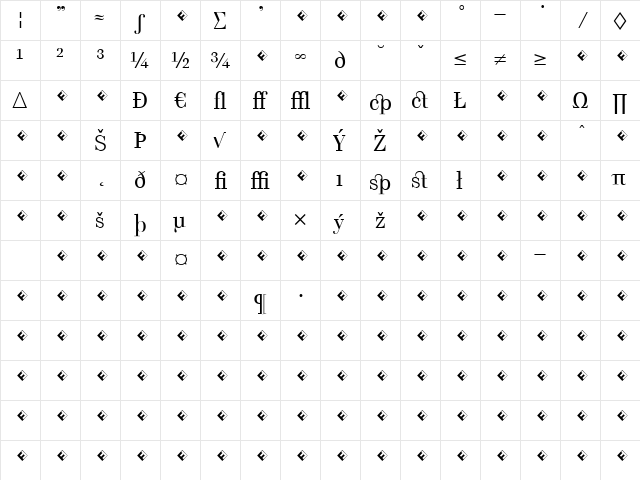
CelliniTitling-RegularExp Regular
| Foundry | Albert Boton, published by FontShop International for the FontFont Library |
| Designer | Albert Boton |
Design Context for CelliniTitling-RegularExp Typeface
CelliniTitling-RegularExp takes a measured approach to typography — its balanced proportions and neutral character make it a reliable workhorse for both digital and print work.